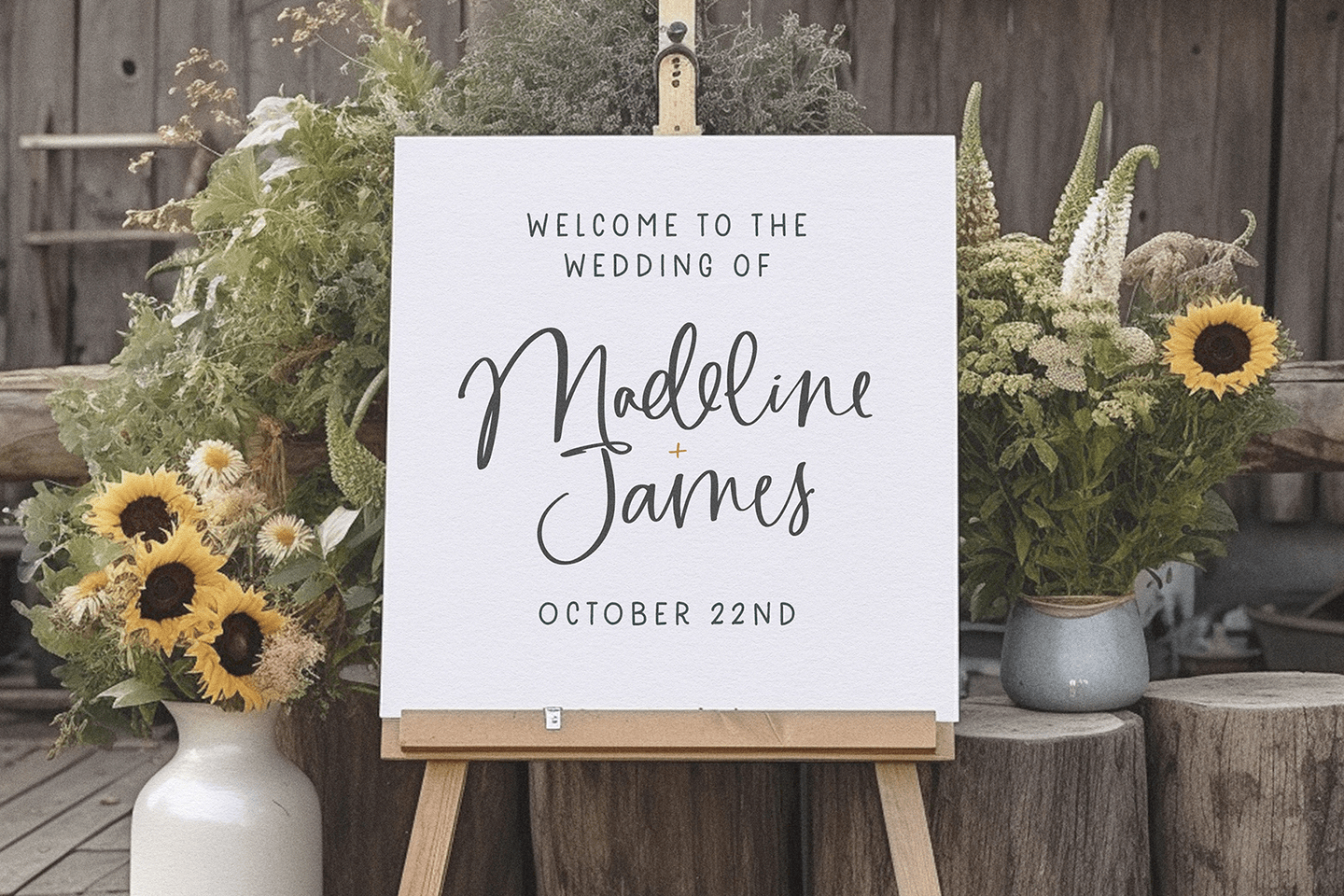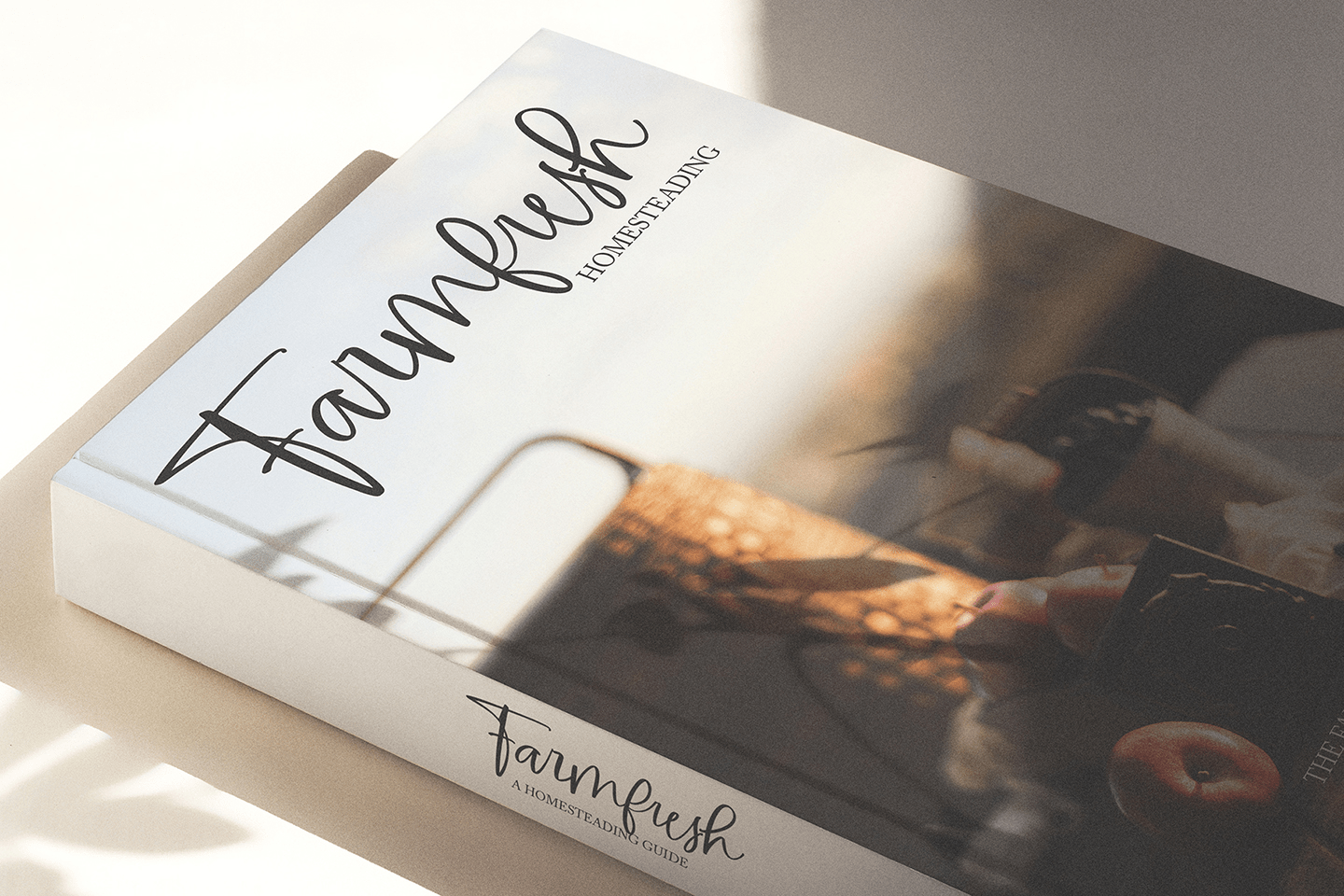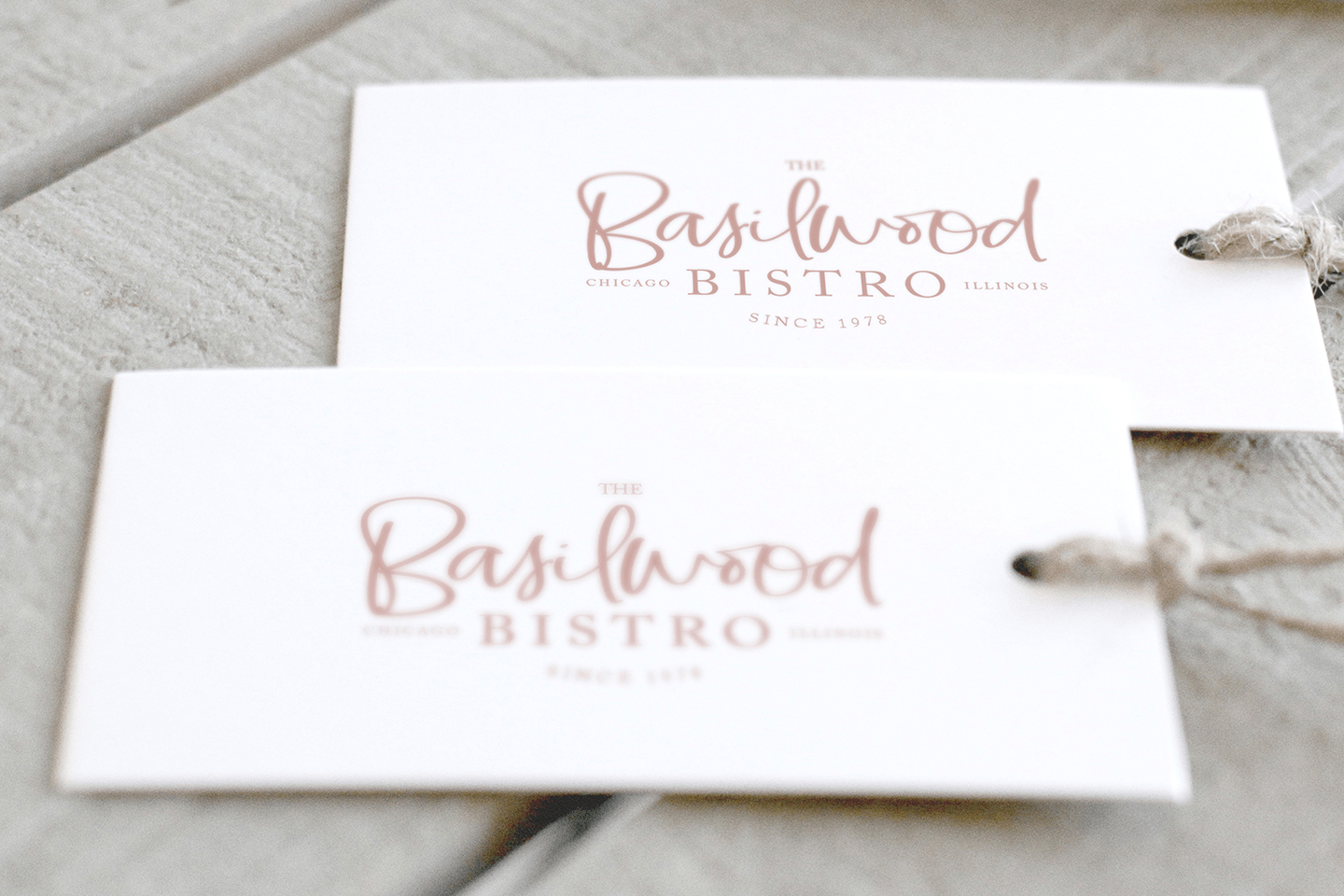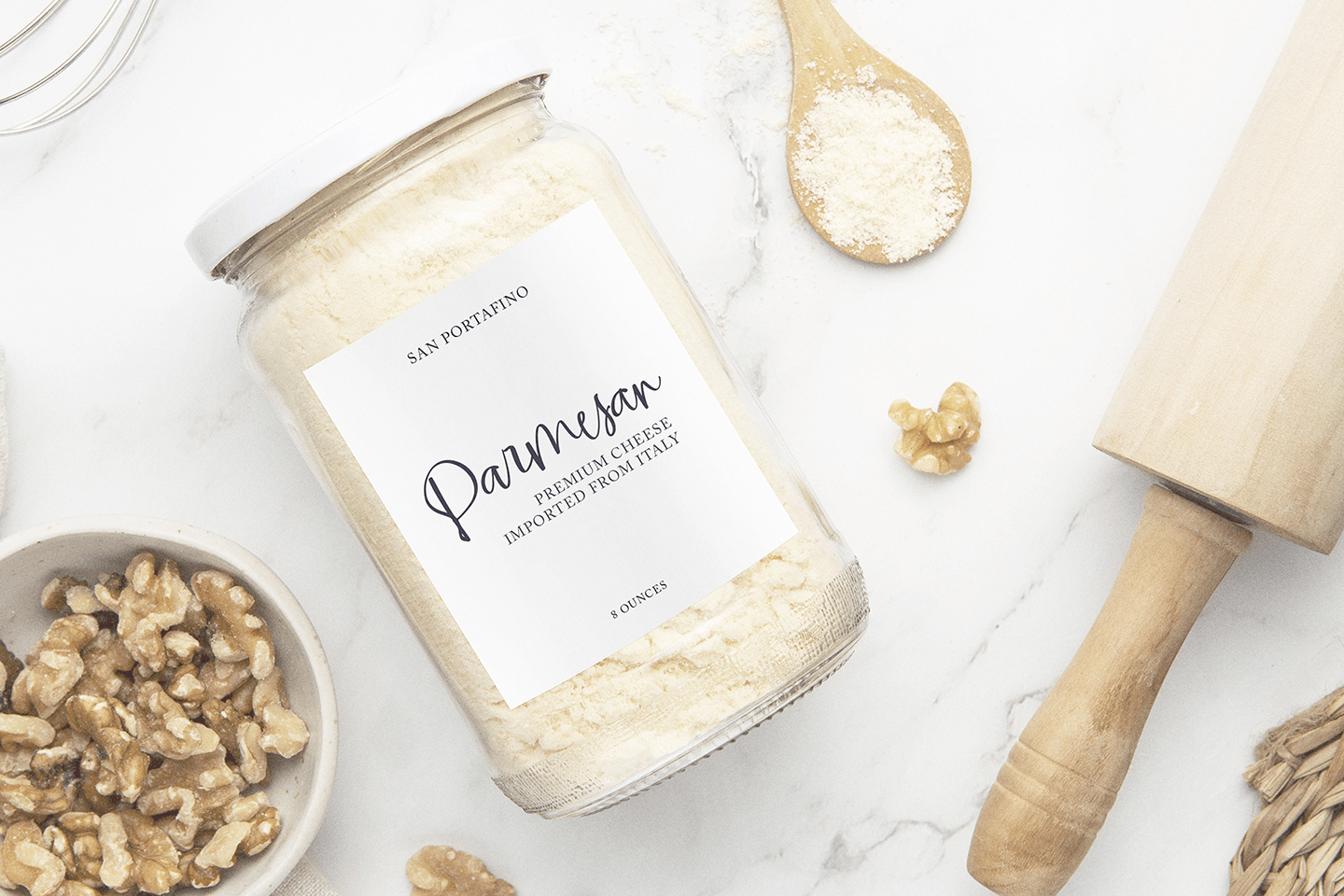
About American Honey
Say hello to American Honey, a darling calligraphy font & sweet sans serif, boasting over 200 alternates, ligatures and end characters. American Honey is gorgeous on signage, logos, branding, packaging, greeting cards, editorials and so much more! WHAT…